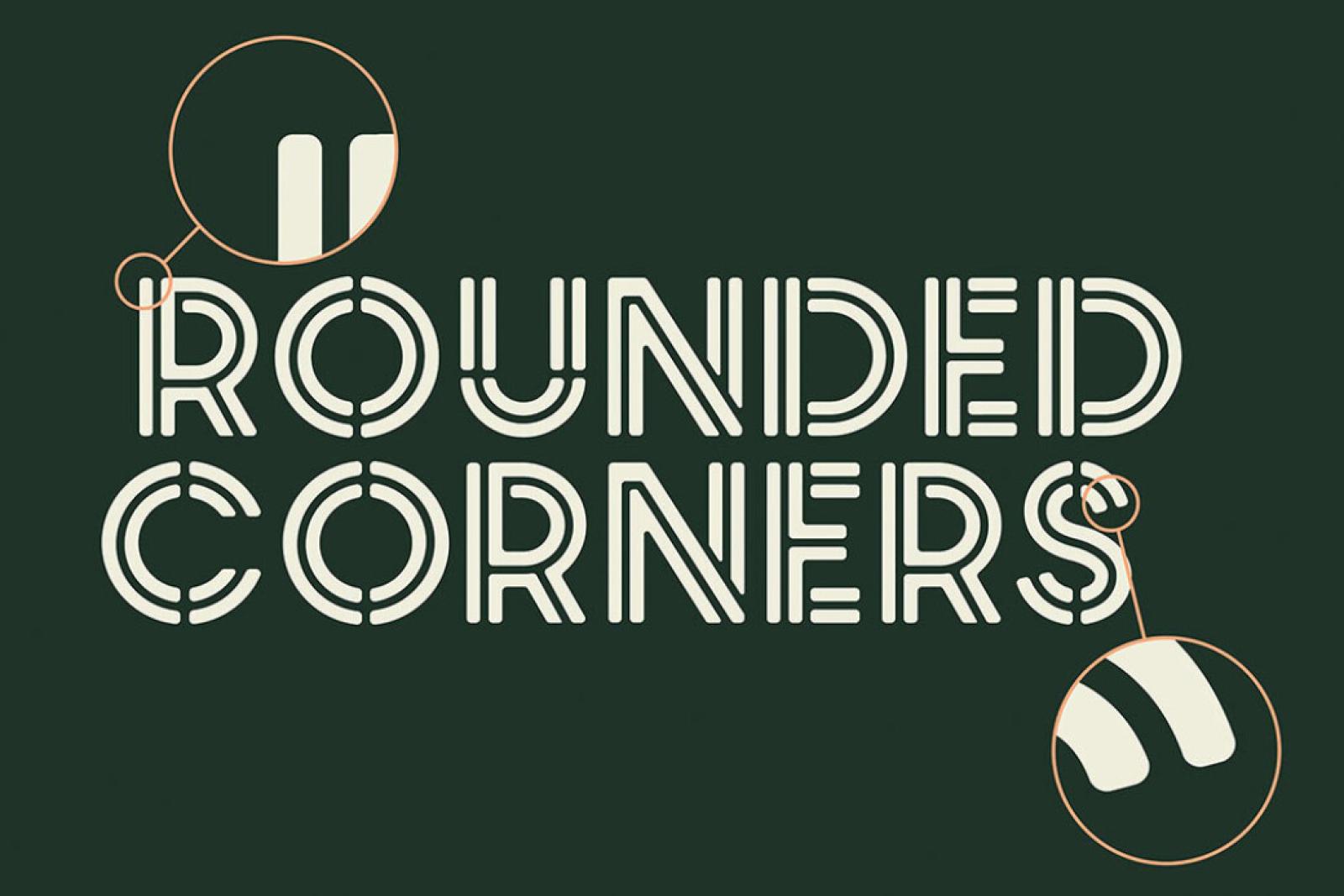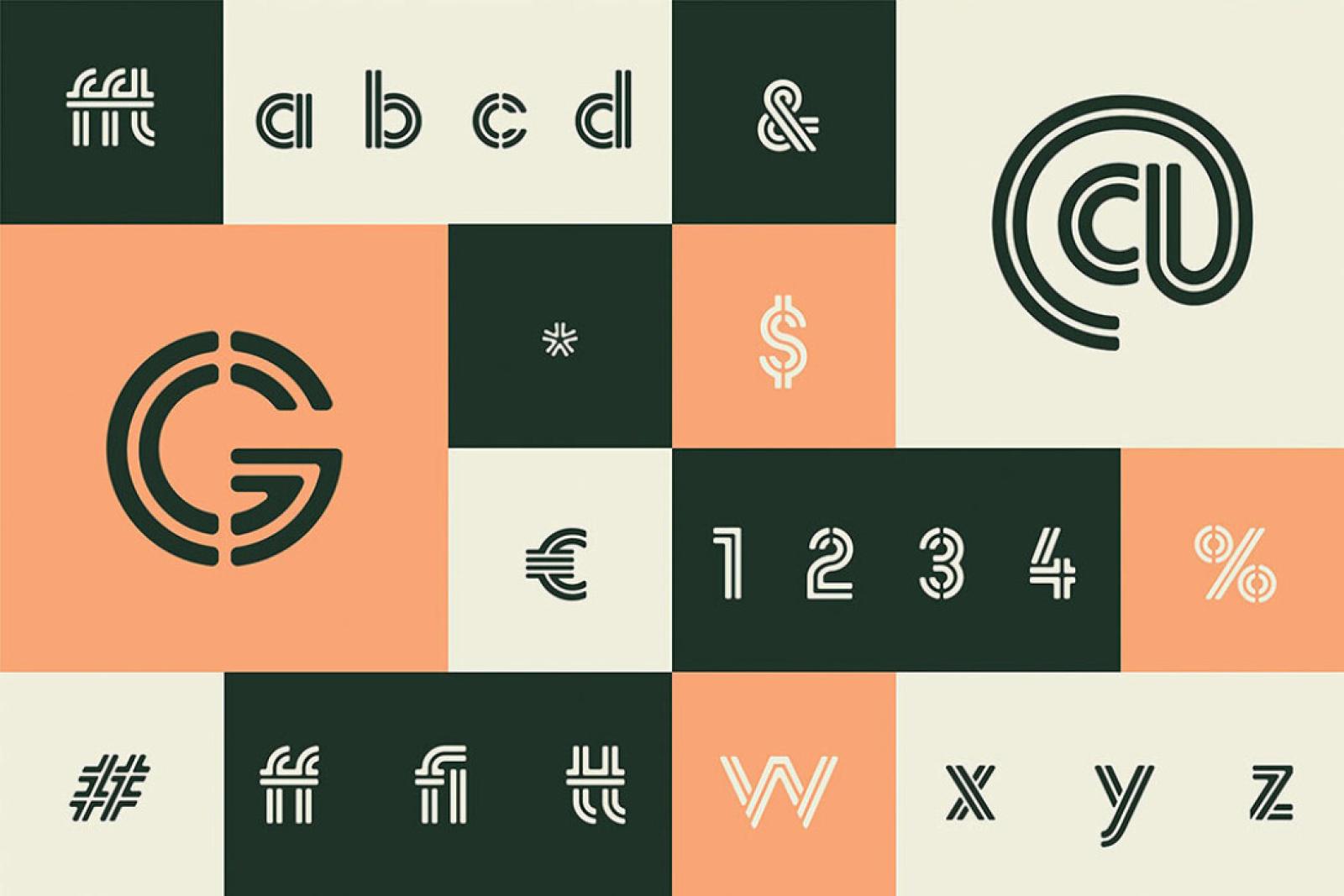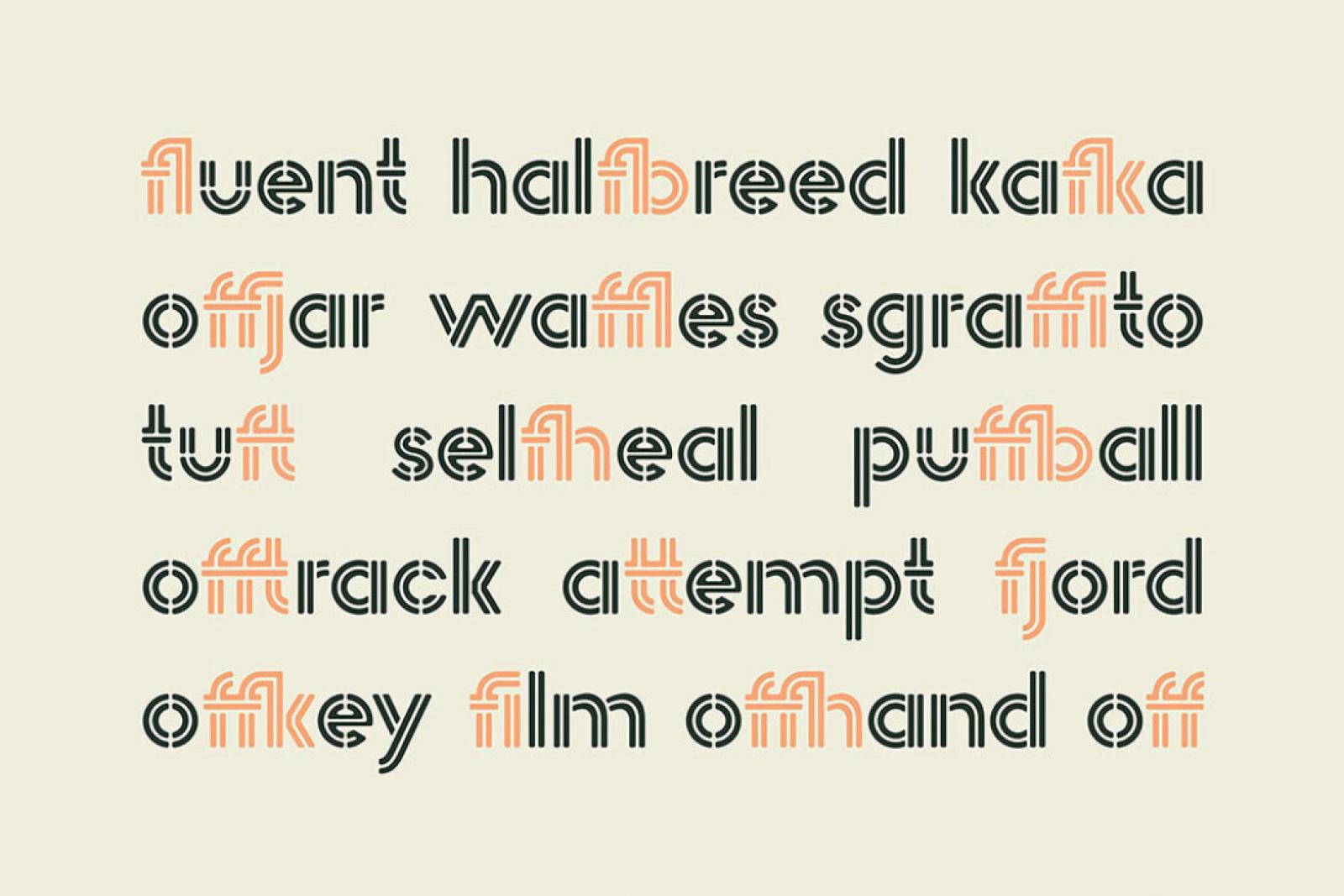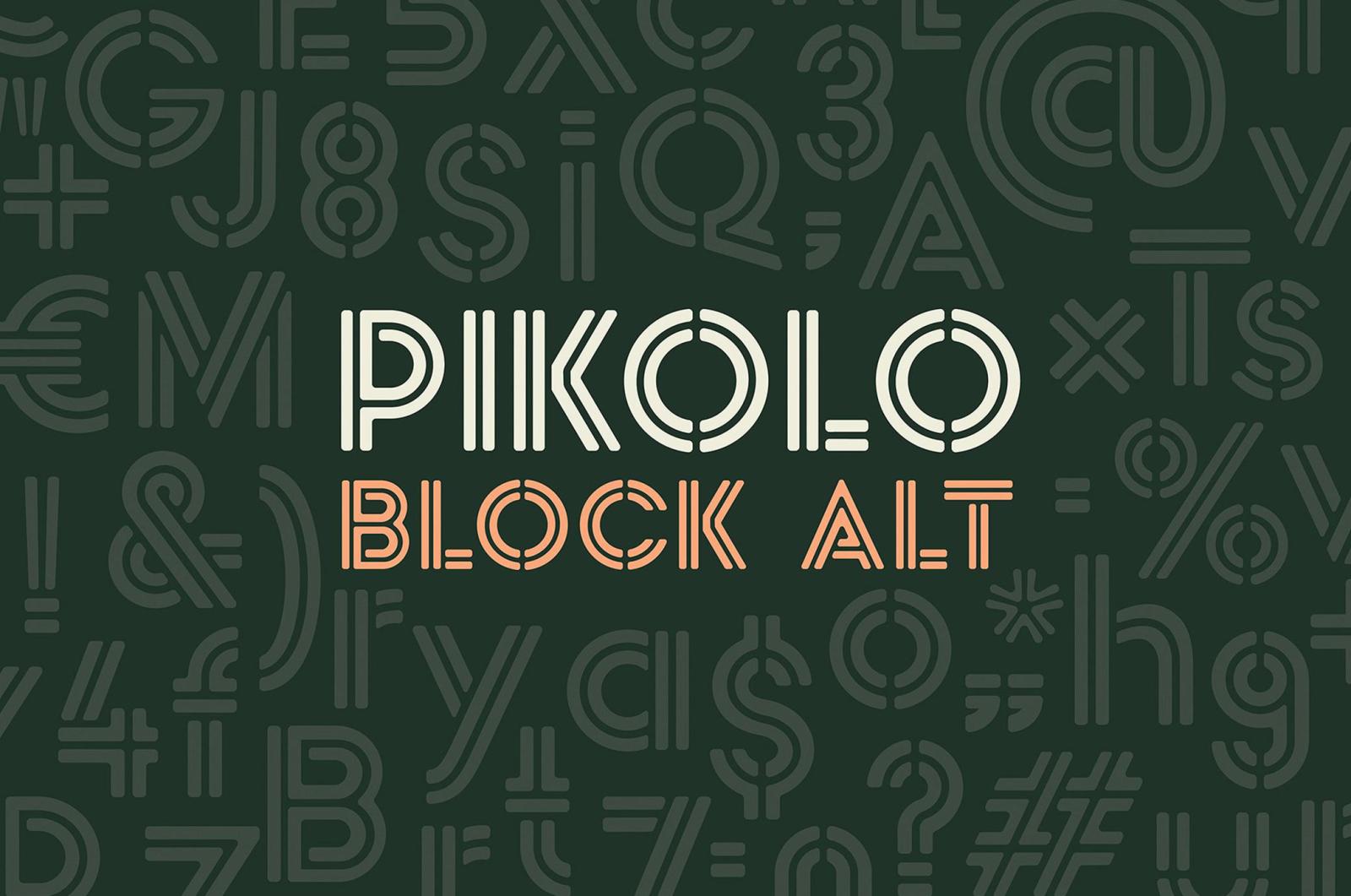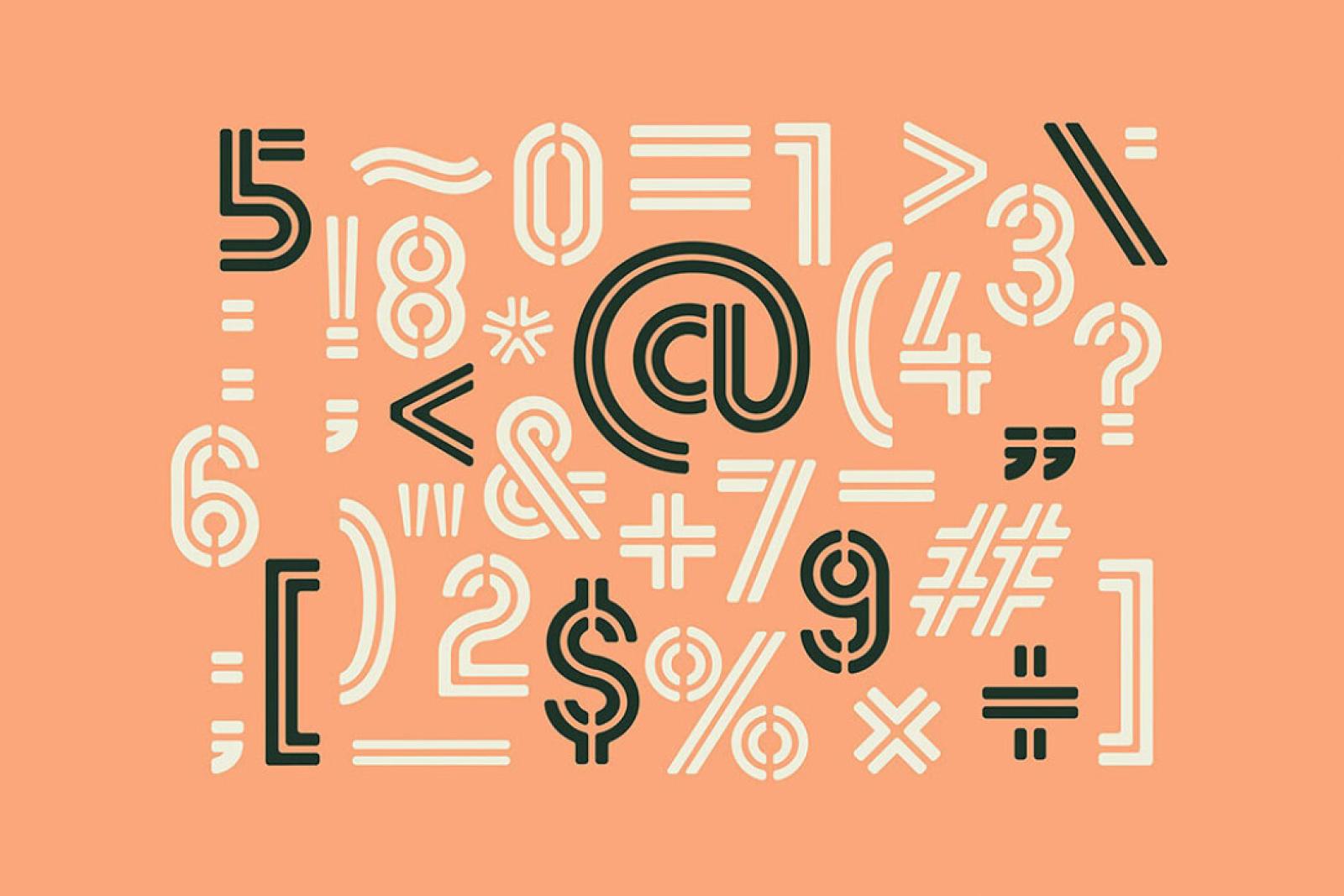
Pikolo Block Alt Display Font
Its good to get back to the origins and bring you some lettering, thats perfect to attract attention. So, once weve seen Pikolo, weve realized its the kind of a typeface you must be missing.
We couldnt help sharing this font with you composed of separate blocks, so straightforward and powerful. Pikolo comes with full upper & lowercase characters, numbers, symbols and includes the most common stylistic ligatures, so it really can embrace all possible cases of use: from logos and signs to apparel design and decor. And its rounded corners, sure, will get you a light, playful touch, so not a single trait of over-seriousness.